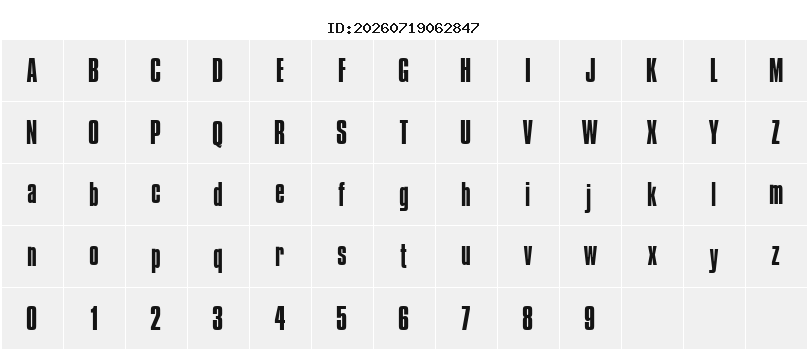
About Compacta ICG.ttf
Compacta ICG.ttf is a modern, elegant sans-serif font designed for ultimate readability and visual harmony. Perfect for branding, headlines, web design, and print materials.